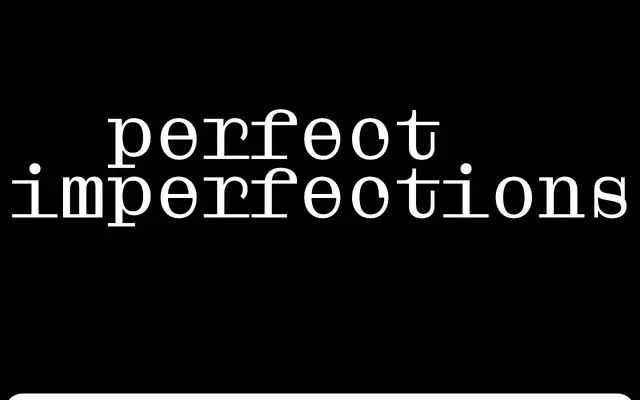
Droulers
Bureau Brut · Yoann Minet · 2017
A monospaced typeface by Yoann Minet that translates typewriter imperfections, such as ink fill and merged serifs, into precise vector drawing rules.
Designed in 2016 and published by Bureau Brut in 2017, Droulers takes the physical accidents of typewriter mechanics, closed counterpunches, serifs sticking together, uneven ink deposit, and codifies them as consistent design decisions rather than nostalgia. The italic is a genuine calligraphic italic, not a slanted roman, with each character finding its own angle. The family was originally commissioned for a retrospective publication on choreographer Pierre Drouler, and the archive of typewritten documents underpins its character.
Droulers is monospaced with rectangular serifs and no stroke contrast, directly referencing the typewriter aesthetic. It qualifies as a slab mono, where the slab details are reinterpreted from typewriter imperfections rather than conventional slab tradition.